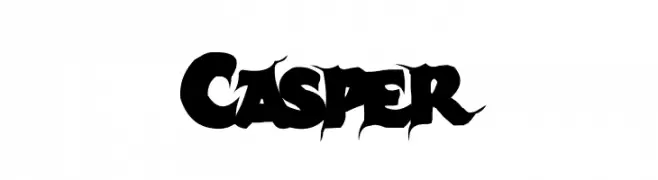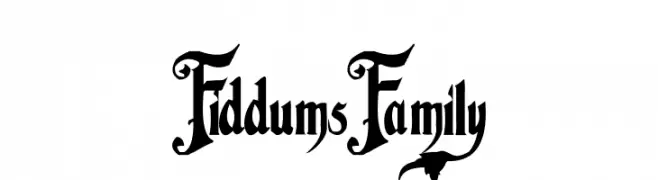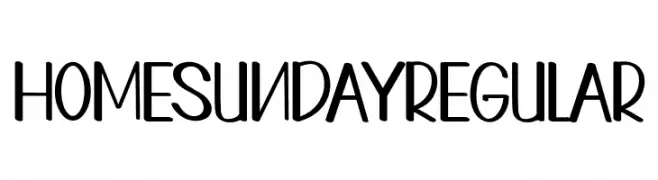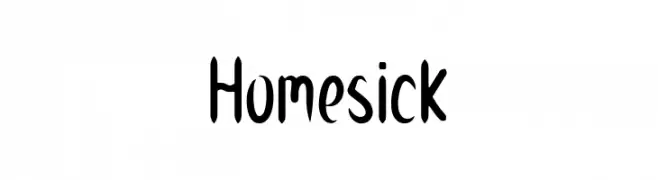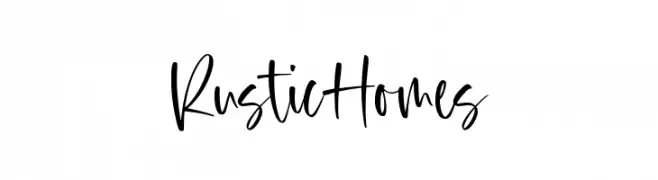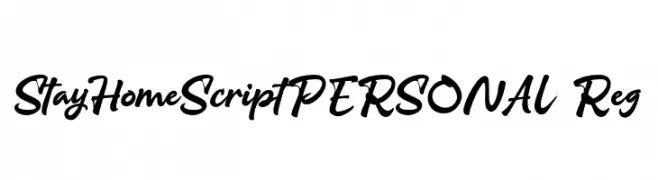
A playful, modern font with bold, slightly condensed uppercase letters and dynamic lowercase letters.
A bold, playful font with rounded edges and a friendly appearance.
A casual, flowing script font with a handwritten appearance.
A playful, handwritten font with a whimsical and informal style.
A lively, handwritten cursive font with a dynamic and fluid style.
A decorative and whimsical font with intricate flourishes and embellishments.
A bold, gothic-inspired font with sharp, angular edges and dramatic flair.
A decorative font with a cross-stitch pattern, ideal for festive and handcrafted designs.